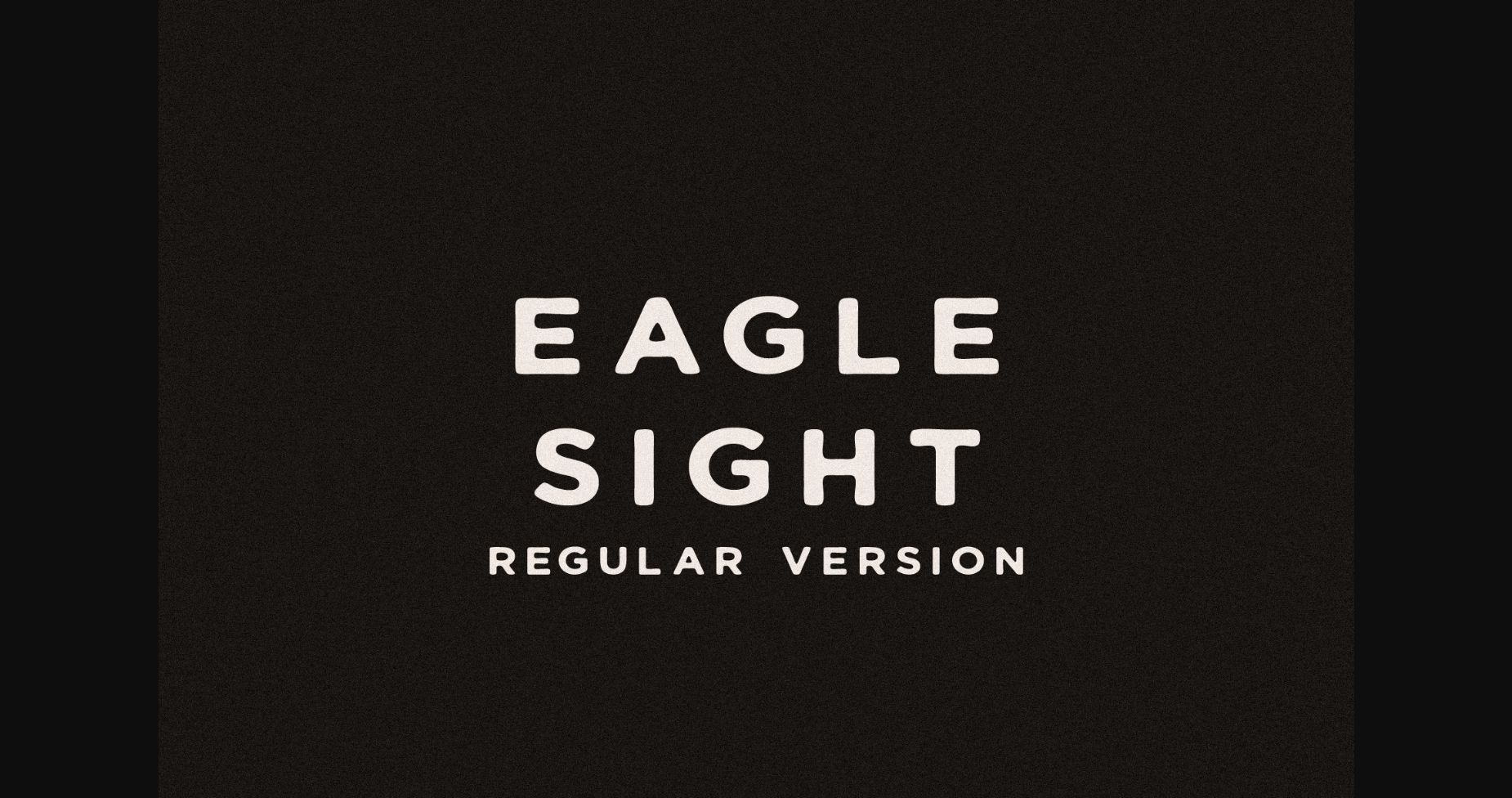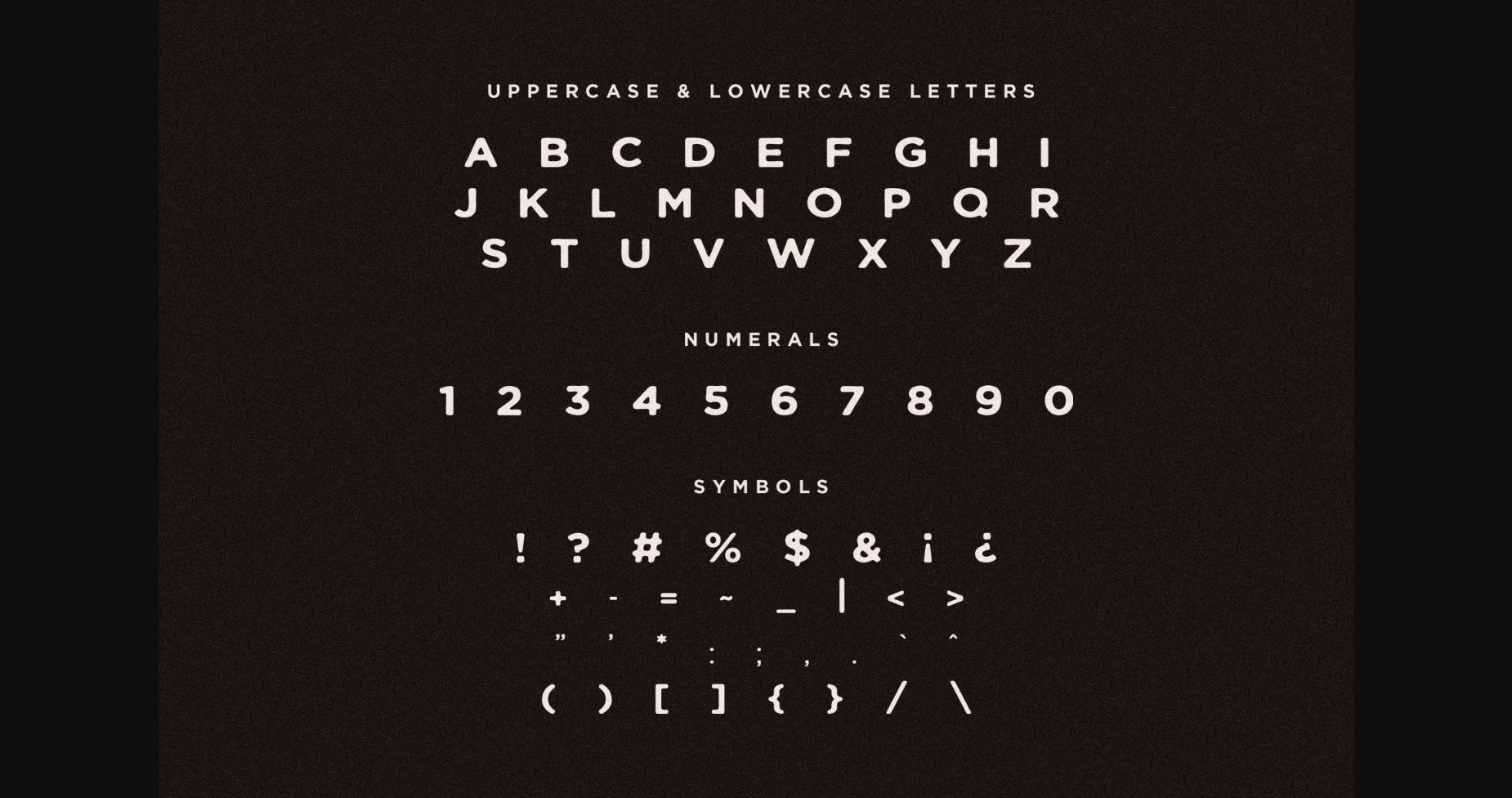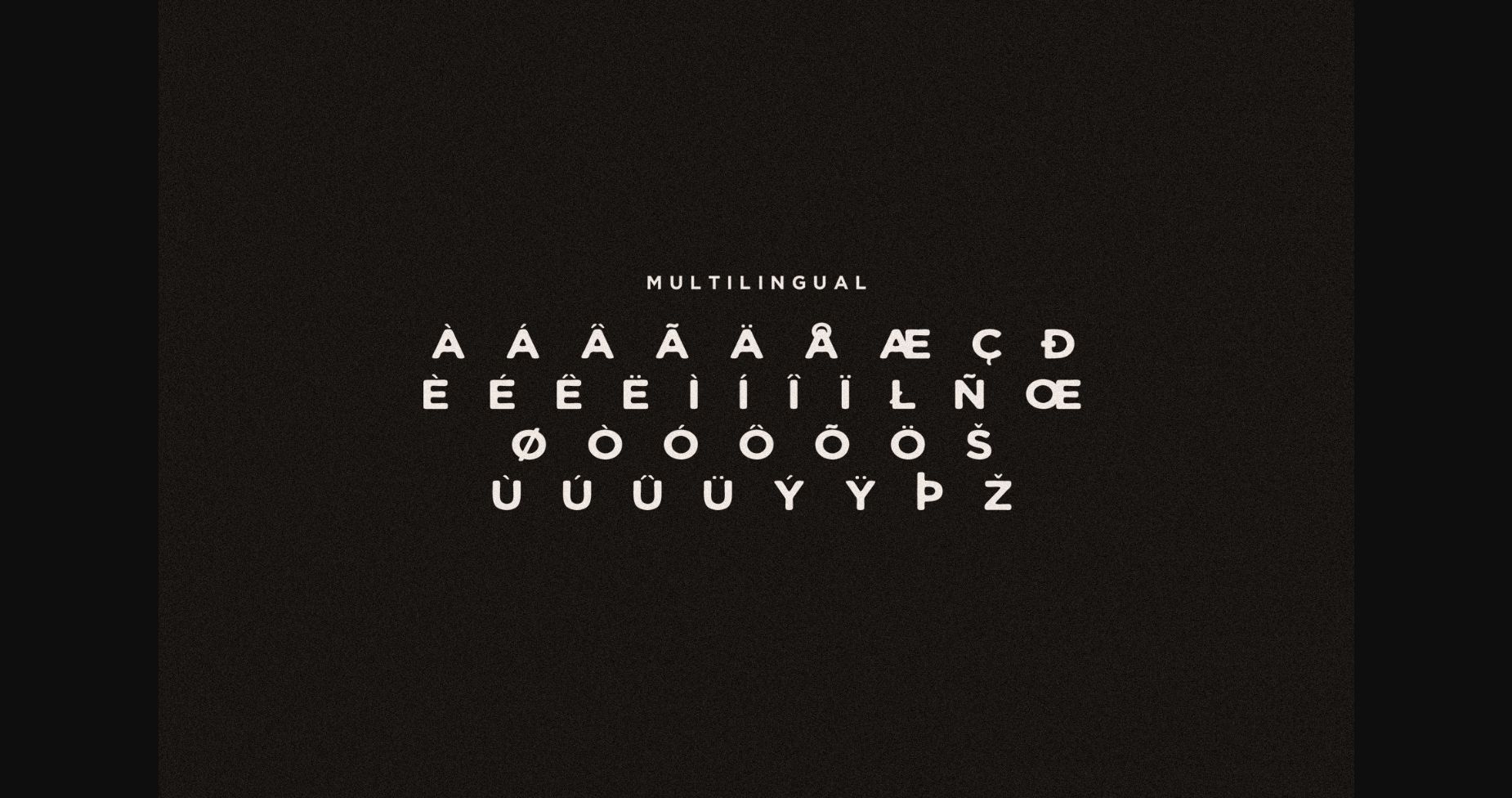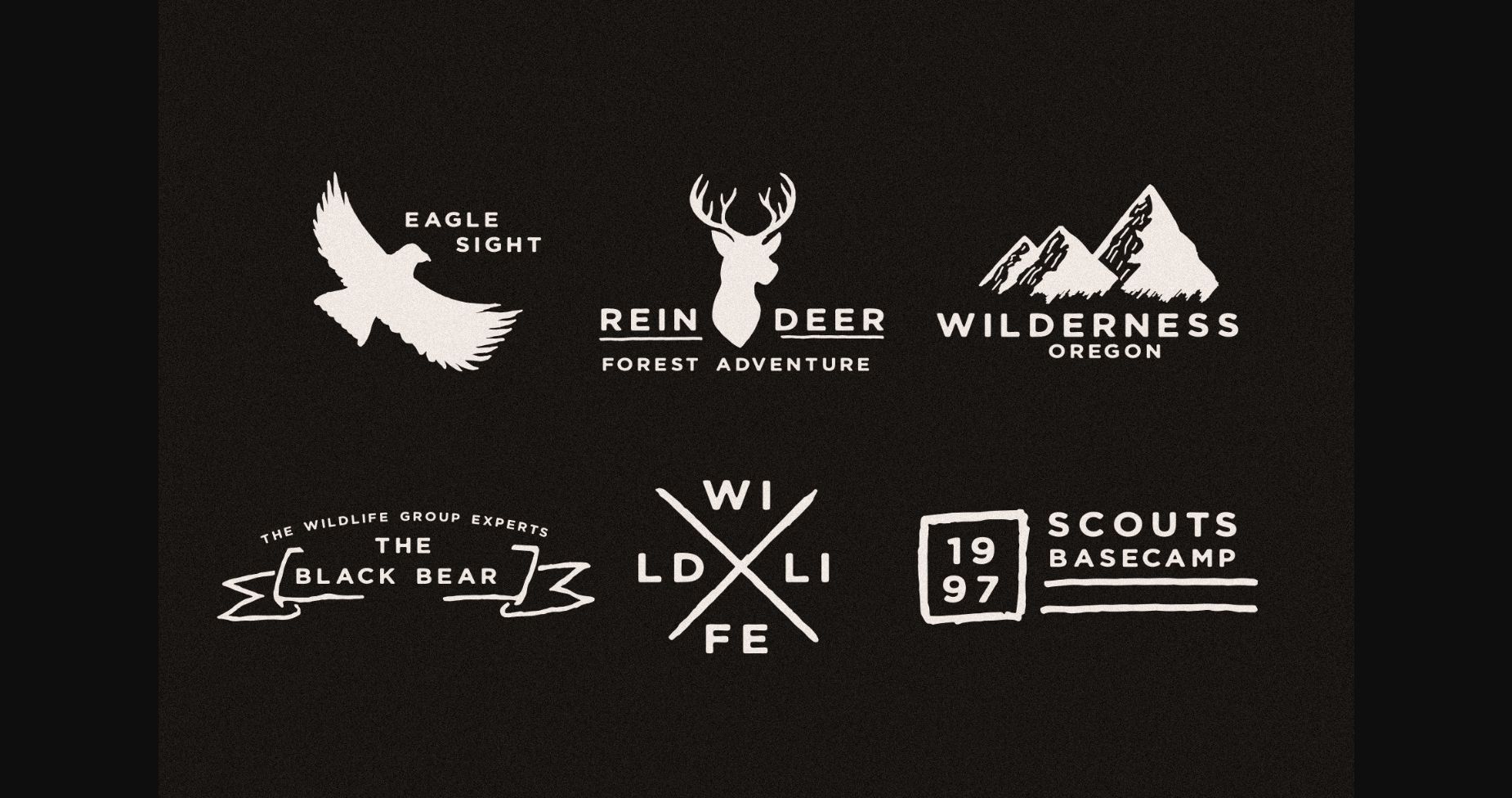
Eagle Sight Regular Font
About Eagle Sight Regular Font
Eagle Sight is a vintage-inspired sans-serif font that combines simplicity and elegance. It’s clean lines and classic style make it perfect for projects with a retro feel or a modern twist. With a versatile range of weights and styles, it is sure to add a touch of sophistication to any design.